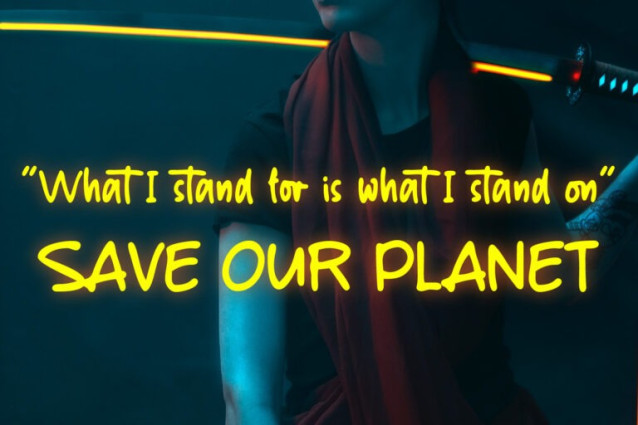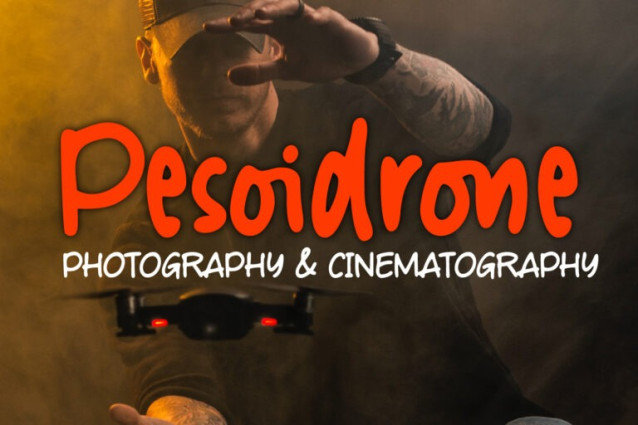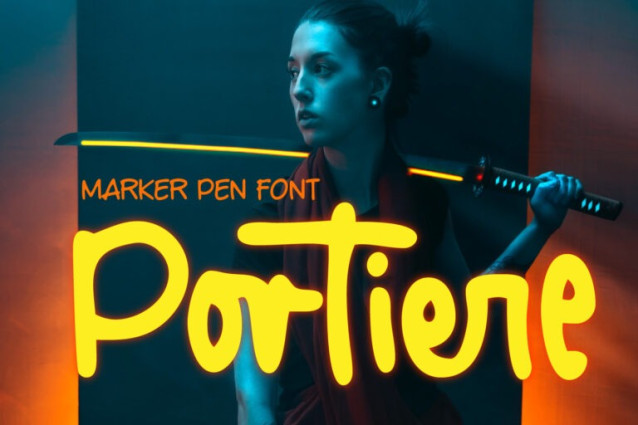
Portiere Script Font
Portiere Script Font is a natural handwritten font, we created this font using a marker pen, the natural emphasis of the pen makes the round size random.
We write one by one on the paper and then we select each glyph to be the font. This is how we get a natural impression.
To sharpen the natural impression we made several ligatures because in natural writing you will not find the same composition. Activate the ligature and feel a natural writing sensation.
This font is very suitable for writing quotes and short sentences. Even more so for text animations such as on YouTube and other social media. Its unique shape also allows it to be used for logos.